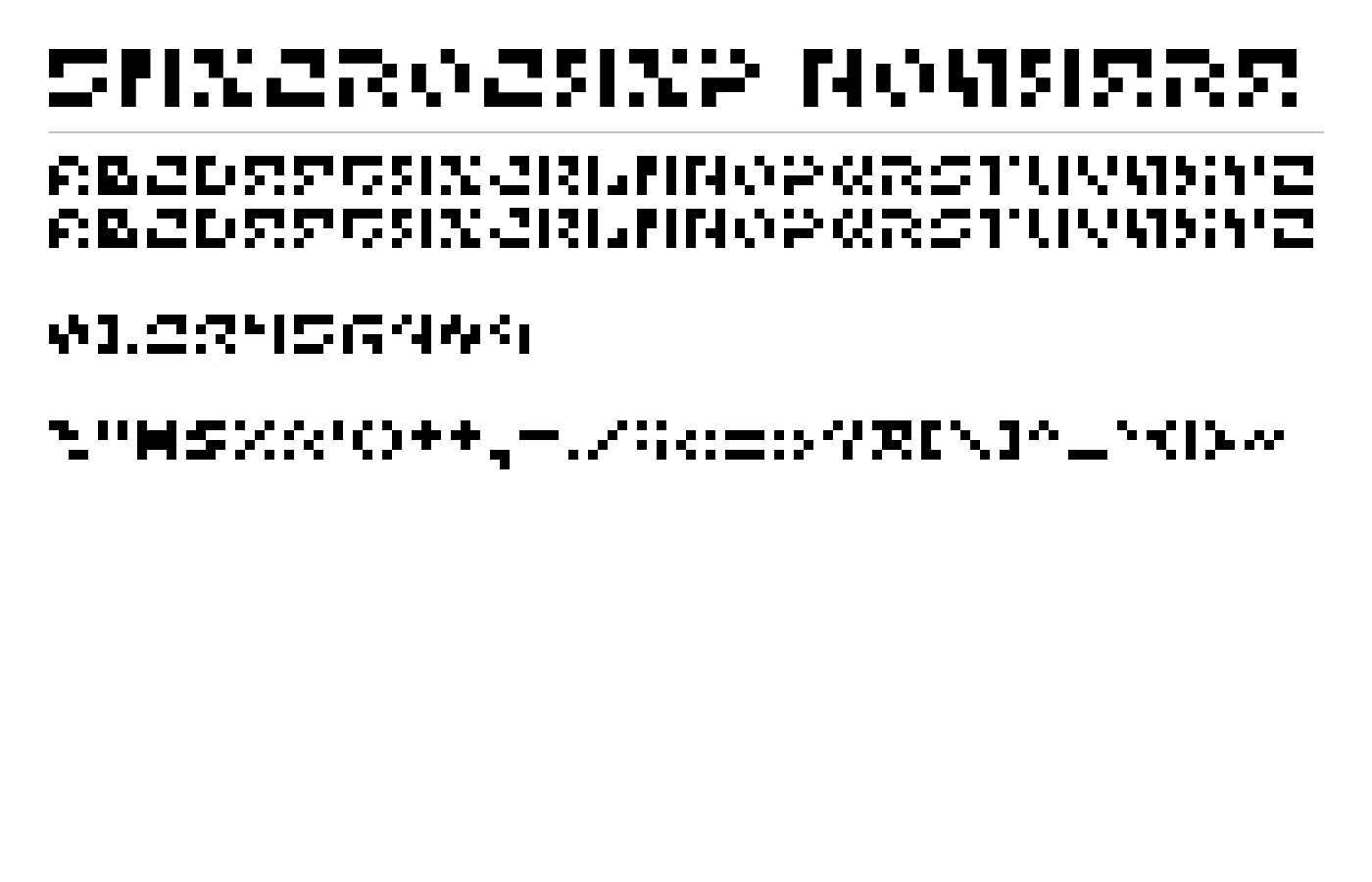
5Microchip Nowhere is a pixelated, monospaced font that evokes a digital, tech-inspired aesthetic with its blocky, geometric letterforms and consistent stroke weight. Its futuristic and grid-like design makes it ideal for projects related to technology, gaming, or retro computer themes, offering a bold and modern feel that suits headlines, logos, and digital interfaces. This font works well where a distinct, digital look is desired, adding a sense of innovation and cutting-edge style.
5Microchip Nowhere Font
About 5Microchip Nowhere Font
| Font family | 5Microchip Nowhere Font |
| Release date | 2013-03-08 |
| Designer | Noah - 10 year old typomaniac |